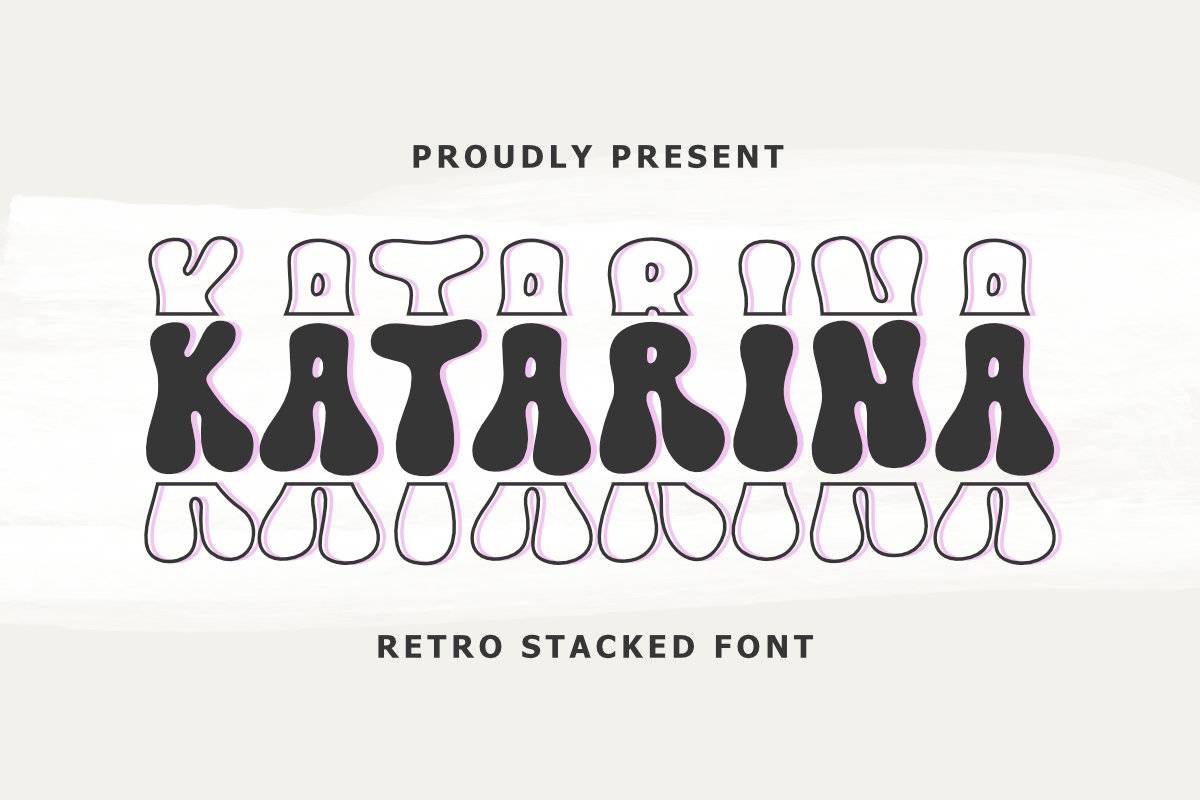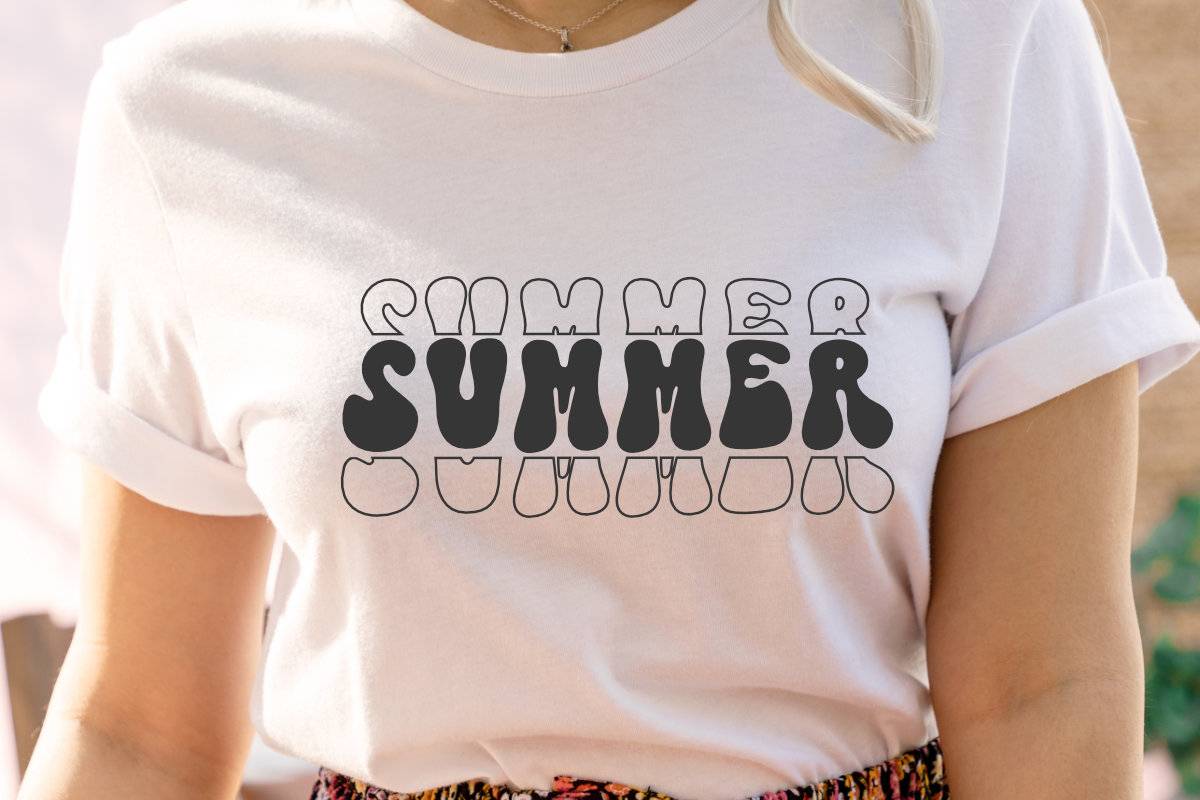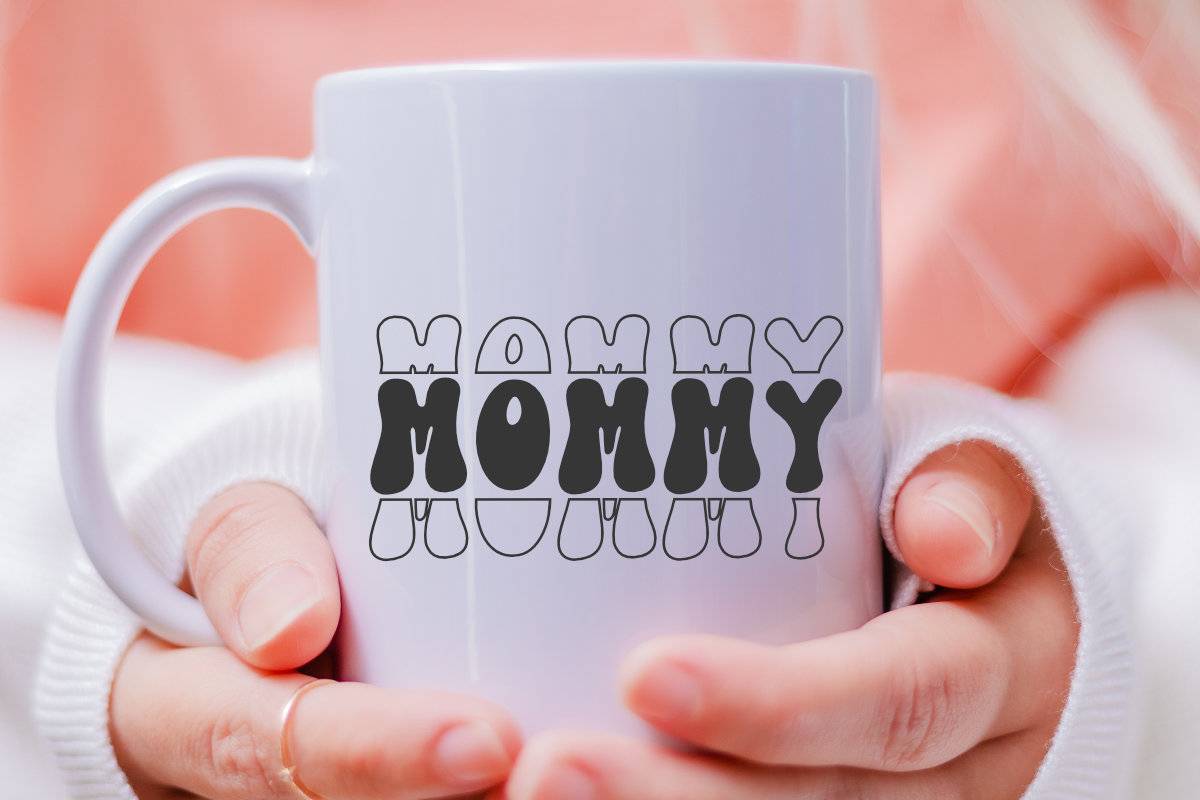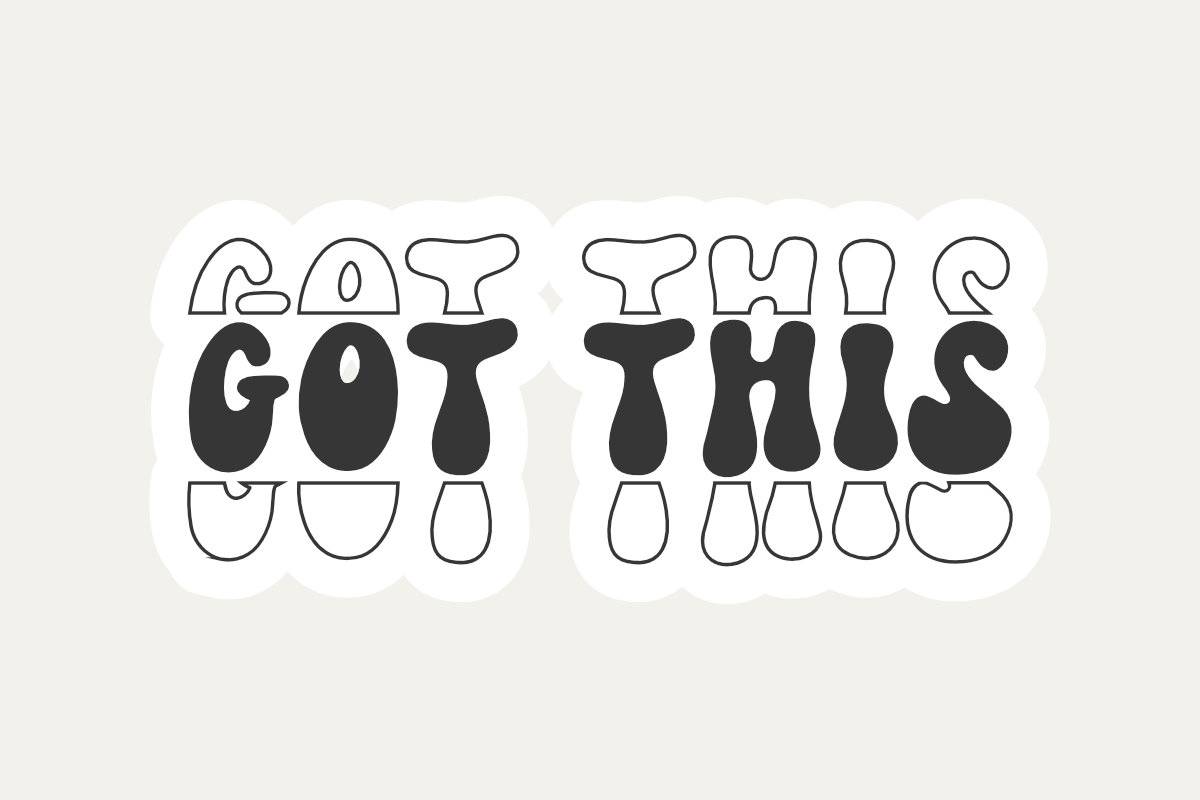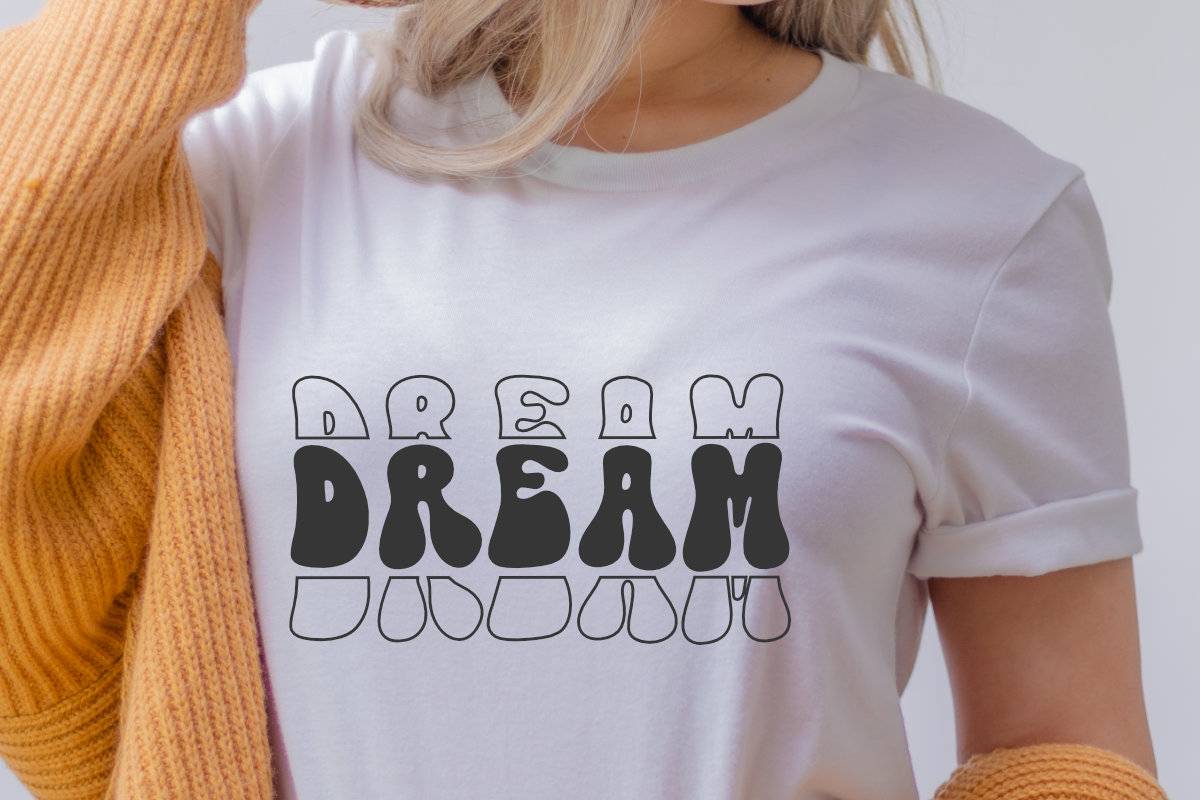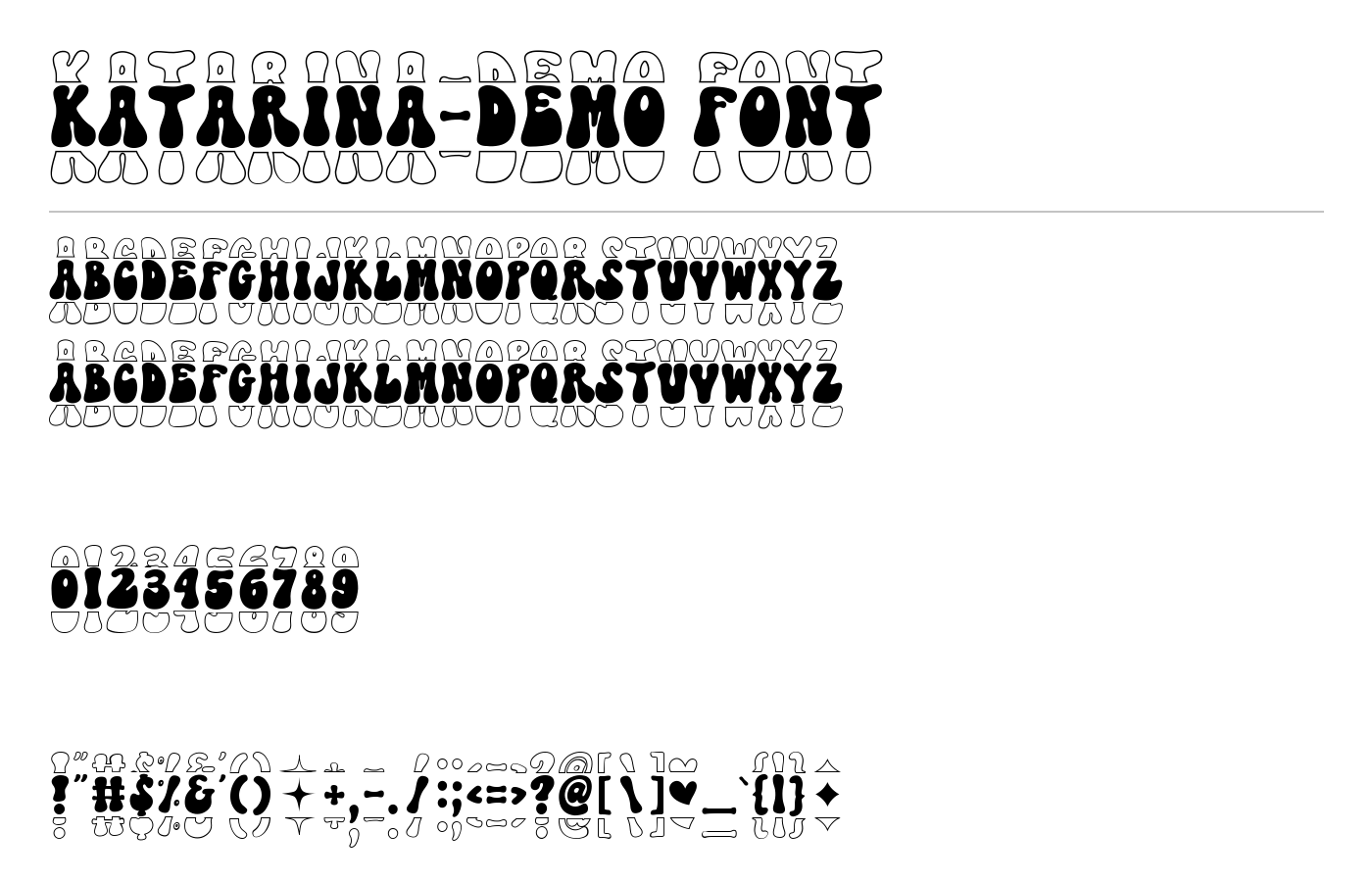
Katarina Font is a bold, playful display typeface with rounded, chunky letterforms that convey a fun and whimsical vibe. Its thick strokes and unusually shaped characters make it ideal for eye-catching headlines, posters, and creative branding where a lively and friendly personality is desired. This font works best in contexts that seek to stand out with a unique, informal style that captures attention instantly.
Katarina Font
About Katarina Font
| Font family | Katarina Font |
| Designer | Jimtype Studio |